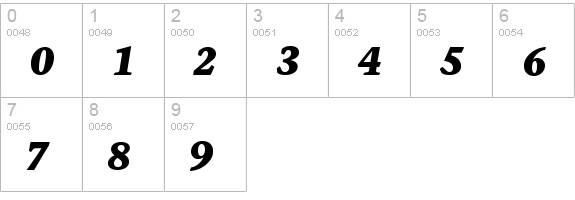
Stone Informal Bold Italic Font Details
Stone Informal Bold Italic is a strong, high-contrast, italic variant in the Stone typeface family \xE2\x80\x94 well suited to headlines, attention-grabbing titles, and strong calls-to-action.
Stone Informal Bold Italic is a striking and versatile font that exudes confidence and creativity. With its bold and italicized design, this font is perfect for making a bold statement in your projects. Whether you are designing a poster, logo, or website, Stone Informal Bold Italic will add a touch of modern sophistication. The unique characteristics of this font make it stand out from the crowd, making your text instantly eye-catching. Its bold strokes and slanted angles give it a strong and dynamic appearance, making it the perfect choice for headlines and titles. Best of all, Stone Informal Bold Italic is available for free download at FontsMarket.com. Now you can enhance your designs with this stylish and impactful font without breaking the bank. Don't miss out on the opportunity to elevate your projects with the bold and expressive Stone Informal Bold Italic font.